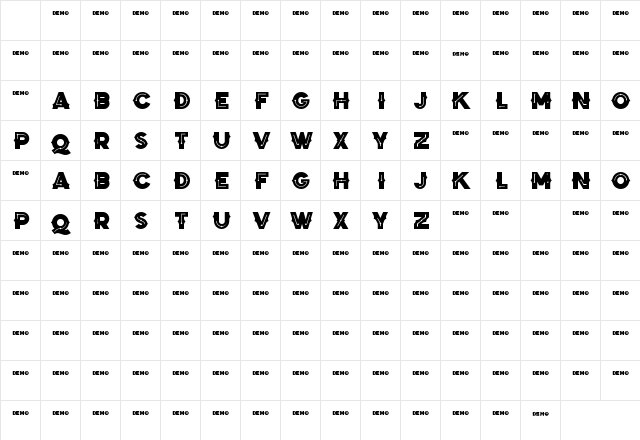
Zilap Black Storm is a composed and adaptable typeface that performs quietly and consistently across a wide range of design contexts.
Pro Tip: Use Zilap Black Storm in both headline and body roles to test its range before committing to a single application.